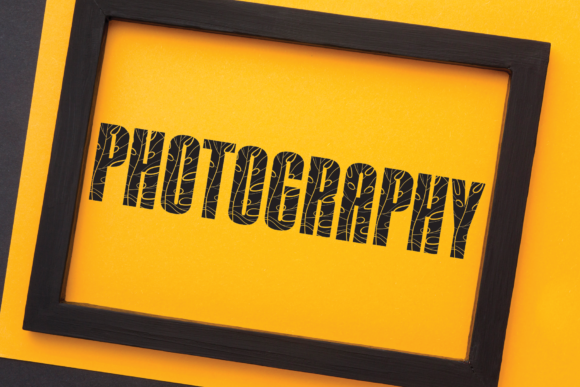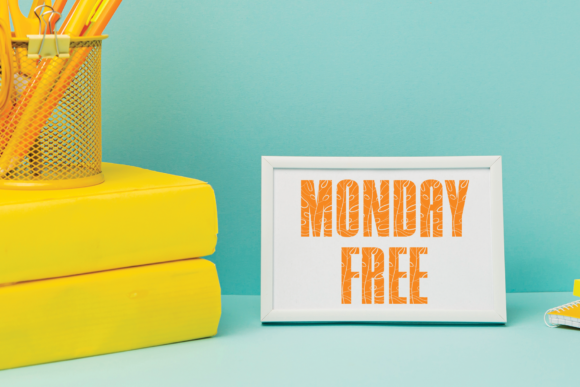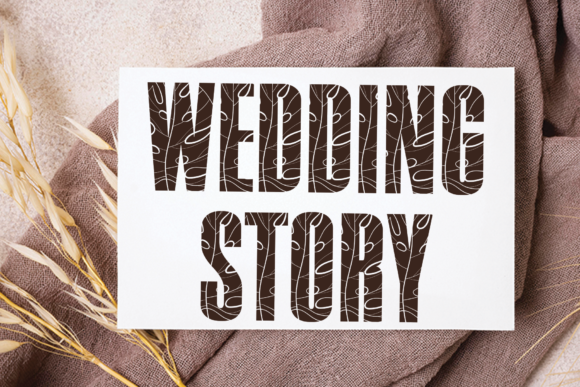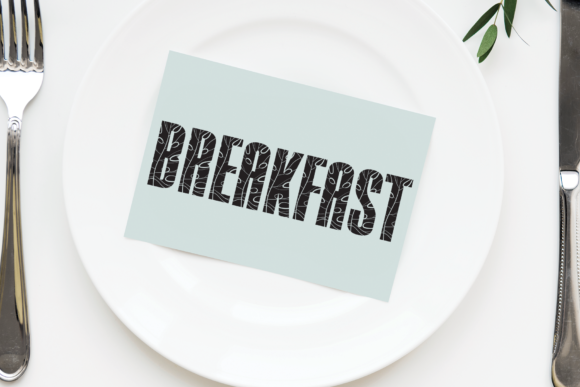
Unlock the Beauty of Nature in Your Designs
Have you ever stumbled upon a beautiful flower arrangement and felt inspired to bring that same elegance into your design work? For many creatives, nature is a constant source of inspiration, and today we’re excited to share a font that captures the essence of the natural world: Flower Mold Font. This modern typeface is specifically designed to evoke a sense of serenity and sophistication, making it perfect for a wide range of applications.
Whether you’re working on a wedding invitation, a social media post, or a product design, Flower Mold Font is an invaluable tool for designers looking to add a touch of whimsy and charm to their projects. Its versatility and timeless beauty make it a valuable addition to any design toolkit, and we can’t wait to explore its possibilities with you.
Flower Mold Font Key Features
- Font Family: A unique, hand-drawn font with floral and mold-inspired elements, ideal for adding a touch of whimsy to designs.
- Character Set: Supports a wide range of languages, including Latin, Cyrillic, and Greek alphabets, making it suitable for international designs.
- Unique Characteristics: The font features intricate, hand-drawn details and a distressed, vintage aesthetic, adding a unique touch to designs.
Flower Mold Font Review
Overall, I think the Flower Mold Font is a unique and interesting addition to any design project. ✨ The font’s playful, whimsical feel makes it perfect for projects that need a touch of elegance and sophistication.
Here are some things that work well:
- The font’s subtle texture and organic feel add a lot of character to text.
- The font is highly legible, even at smaller sizes.
- The font’s range of styles and weights makes it versatile and easy to use in a variety of contexts.
- The font may not be suitable for projects that require a more formal or professional tone.
- The font’s texture and organic feel may not be to everyone’s taste.
- The font’s range of styles and weights can make it feel a bit overwhelming to use.
Overall, I think the Flower Mold Font is a great choice for designers who want to add a touch of personality to their projects. With a little practice and experimentation, it’s easy to get the hang of using this font and creating some truly beautiful designs.
Flower Mold Font Practical Application Guide
Flower Mold Font is a unique and elegant font that can add a touch of whimsy to your designs. To use it, follow these steps:
Tips for Getting the Most Out of Flower Mold Font
Use Flower Mold Font for titles and headings to add a touch of elegance to your designs. Experiment with different font sizes and colors to create a unique look. You can also use it in combination with other fonts to create a visually appealing design.
Flower Mold Font is perfect for:
- Birthday invitations and cards
- Wedding stationery and decorations
- Branding and logo design
- Photography captions and quotes
Alternatives to Flower Mold Font
Playfair Display is an elegant and luxurious serif font, perfect for high-end branding, invitations, and special occasions. It’s ideal for creating a sophisticated and refined look.
Compared to Flower Mold Font, Playfair Display has a more formal and classic feel, while Flower Mold Font has a more rustic and vintage vibe. Playfair Display is suitable for formal events and luxury brands, whereas Flower Mold Font is better suited for rustic or vintage-inspired designs.
Great Vibes is a modern and elegant script font, perfect for creating a sense of luxury and sophistication. It’s ideal for branding, packaging, and advertising.
Compared to Flower Mold Font, Great Vibes has a more fluid and cursive feel, while Flower Mold Font has a more rigid and stencil-like quality. Great Vibes is suitable for high-end brands and modern designs, whereas Flower Mold Font is better suited for rustic or vintage-inspired designs.